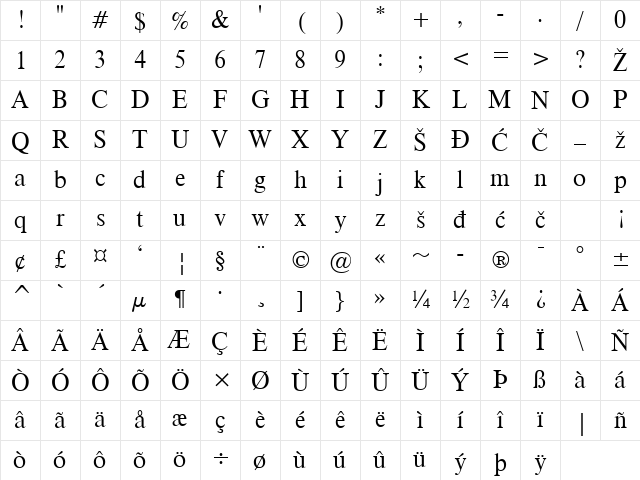
TorontoHeadline Regular
Design Context for TorontoHeadline
TorontoHeadline is a composed and adaptable typeface that performs quietly and consistently across a wide range of design contexts.
Pro Tip: Use TorontoHeadline in both headline and body roles to test its range before committing to a single application.